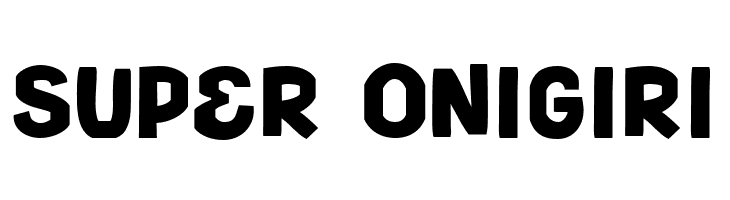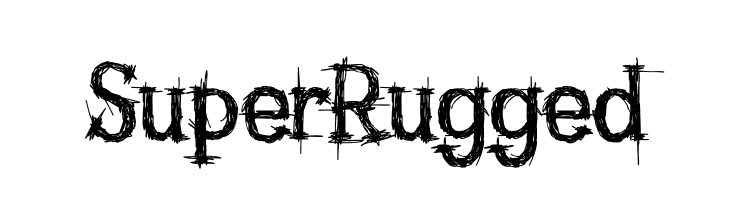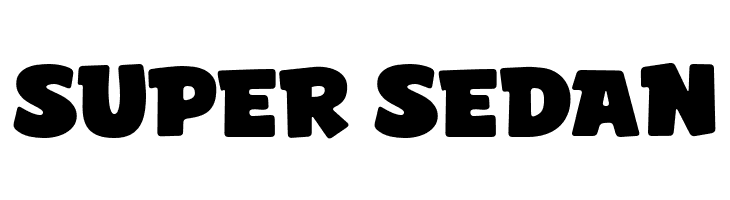
A bold, geometric sans-serif font with a modern, industrial feel.
A bold, distressed font with a rugged and edgy appearance.
A whimsical, handwritten font with playful curves and varying stroke widths.
A modern, geometric sans-serif font with uniform stroke widths.
A decorative script font with elegant, flowing curves and intricate swirls.
An elegant and sophisticated cursive script font with flowing curves.
A playful, whimsical handwritten font with tall, narrow letters and artistic flair.
An elegant script font with intricate swirls and flowing design.
A bold, flowing script font with interconnected letters and a modern style.
An elegant script font with flowing, interconnected letters and decorative flourishes.
A charming and fluid script font with elegant, flowing curves and smooth connections.
A bold, brush-style font with dynamic, hand-painted strokes.
A modern sans-serif font with a clean and minimalistic design.
A bold, modern sans-serif font with strong, uniform strokes.
A bold, modern sans-serif font with uniform strokes and high legibility.
A bold, modern sans-serif font with clean lines and uniform strokes.
A clean, modern sans-serif font with uniform, geometric letterforms.
A textured, bold font with a smoky, organic appearance.
A playful, bold, and rounded font with a hand-drawn, whimsical style.
A whimsical and elegant script font with flowing, cursive characters.
A playful, spooky font with a dripping effect, perfect for Halloween themes.
A playful, hand-drawn font with rounded, irregular characters.
A playful, handwritten script font with consistent stroke thickness.
A graceful and flowing script font with elegant, continuous strokes.
A bold, graffiti-inspired font with a dripping effect and cursive style.
A modern, bold sans-serif font with geometric influences and excellent readability.
A flowing, cursive font with elegant, connected strokes.
A bold, rounded font with a playful, retro vibe.